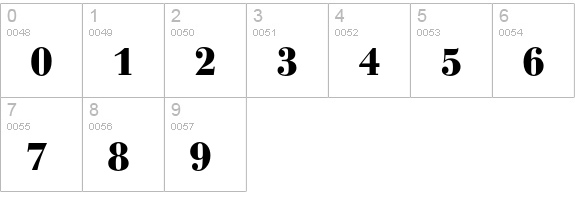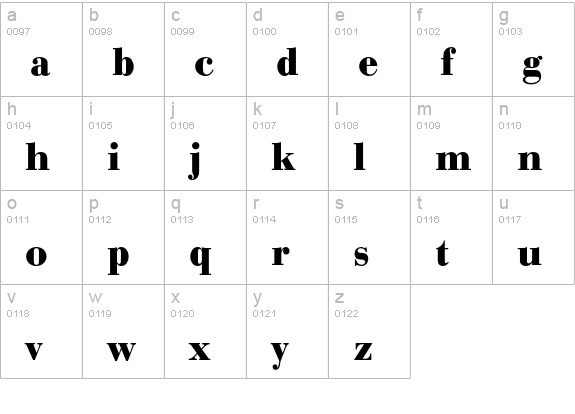
Bauer Bodoni T Bold Font Details
Bauer Bodoni T Bold is a strong, high-contrast variant in the Bauer typeface family \xE2\x80\x94 well suited to headlines, attention-grabbing titles, and strong calls-to-action.
Bauer Bodoni T Bold font is a timeless and elegant typeface that exudes sophistication and class. Its bold and distinctive letterforms make it perfect for headlines, titles, and other prominent text in both print and digital designs. The strong contrast between thick and thin strokes gives this font a sense of power and authority, making it an excellent choice for projects that require a bold statement. What sets Bauer Bodoni T Bold font apart is its versatility - it can be used for a wide range of design applications, from branding and advertising to editorial and packaging. Its classic yet modern aesthetic ensures that it will never go out of style, making it a reliable choice for designers looking for a font that will stand the test of time. And the best part? Bauer Bodoni T Bold font is freely available to download at FontsMarket.com. Whether you're working on a personal project or a commercial endeavor, this font is a valuable addition to your typeface collection. So go ahead and give your designs a touch of sophistication with Bauer Bodoni T Bold font - you won't be disappointed.